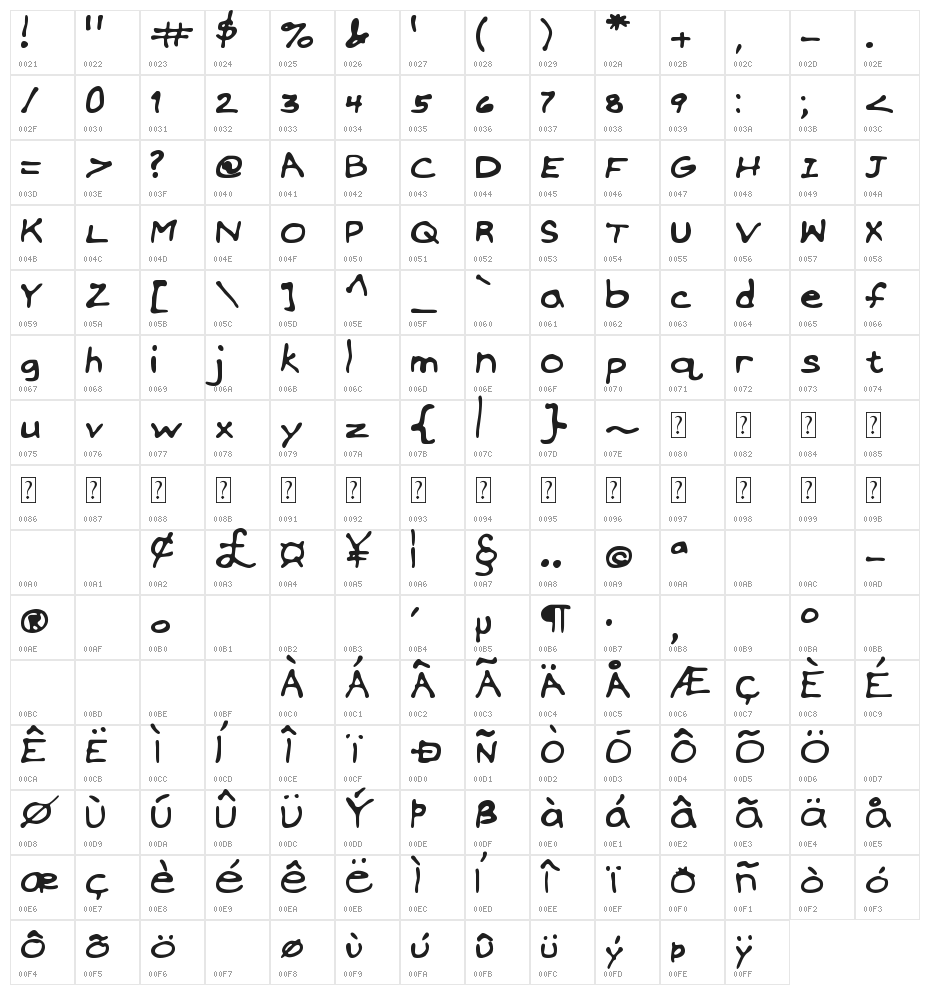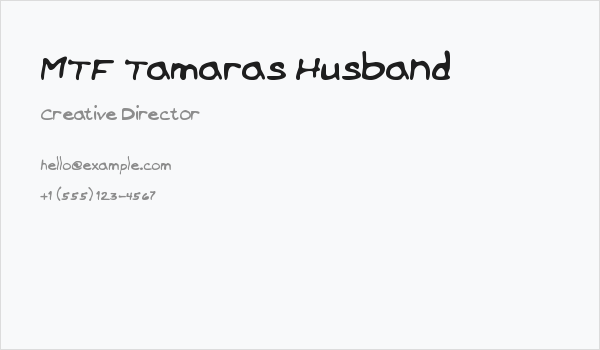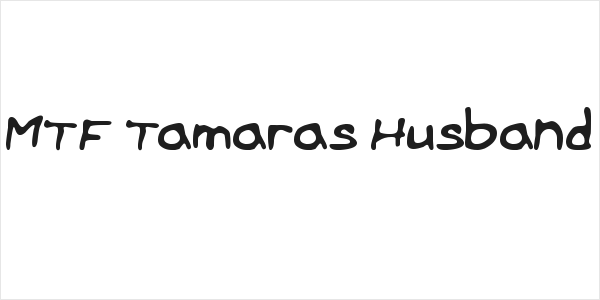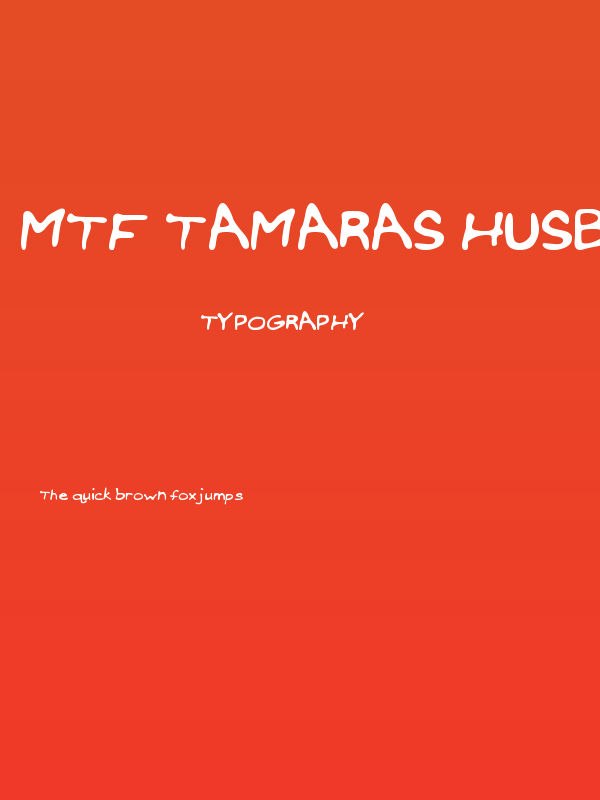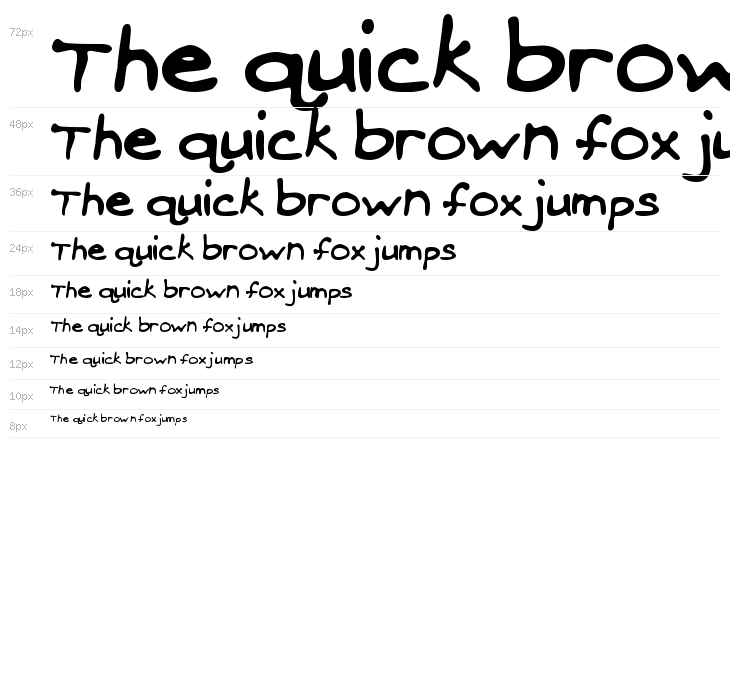
MTF Tamaras Husband Font
MTF Tamaras Husband Description
This font features a playful and informal handwritten style, characterized by its bold and slightly irregular strokes. The letters have a casual, friendly appearance, with rounded edges and a consistent thickness throughout. The uppercase and lowercase letters maintain a cohesive look, while the numerals and special characters complement the overall style. This font exudes a sense of approachability and creativity, making it suitable for projects that require a personal touch.
Overall StylePlayful
Use CaseHeadlines, Logos, Informal Text
Proposed ProjectsIdeal for children's books, greeting cards, playful branding, and informal invitations.